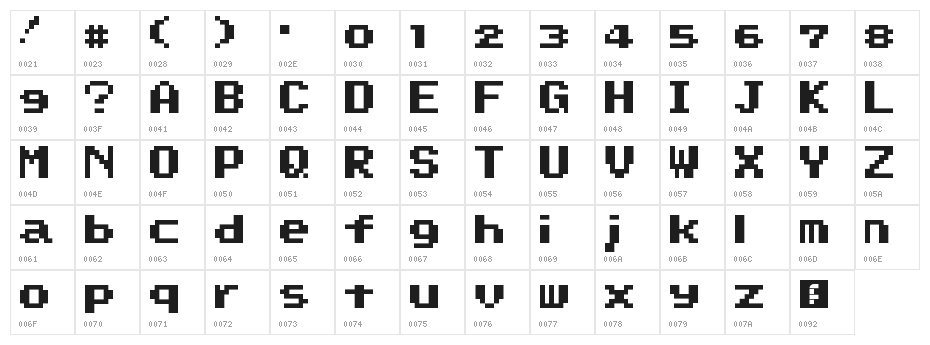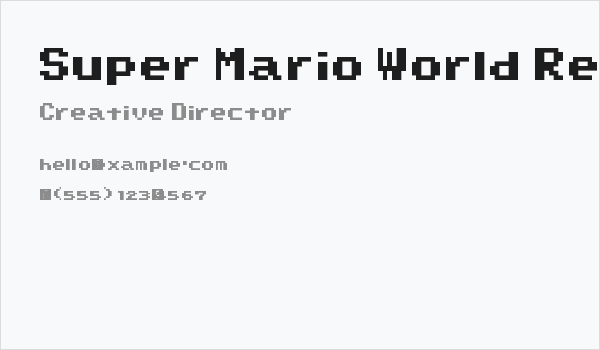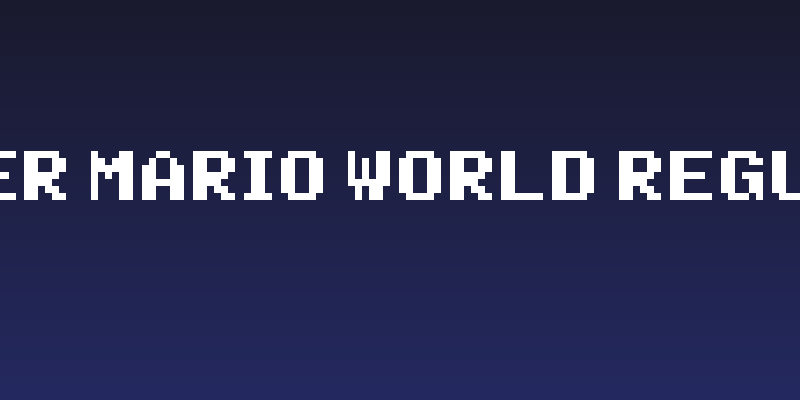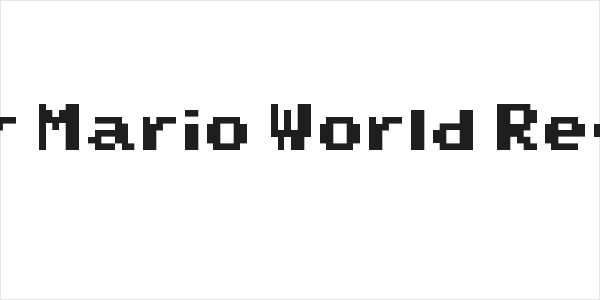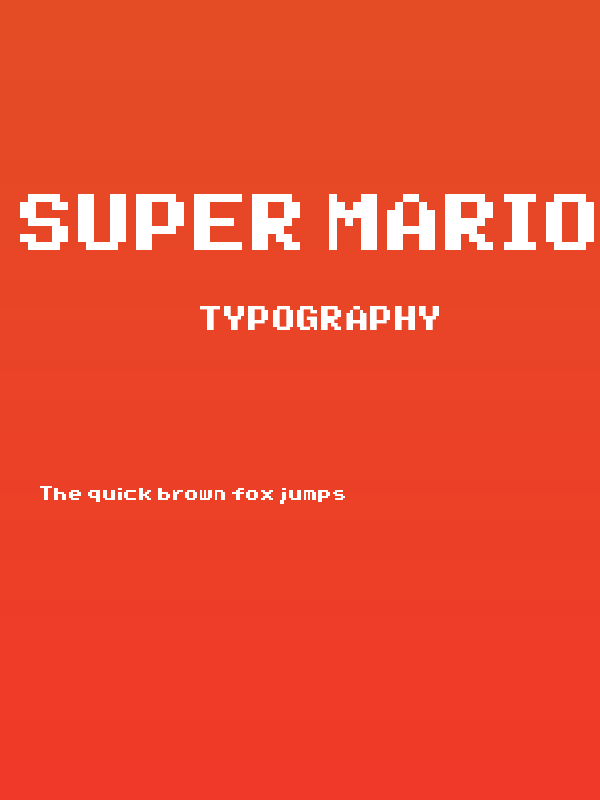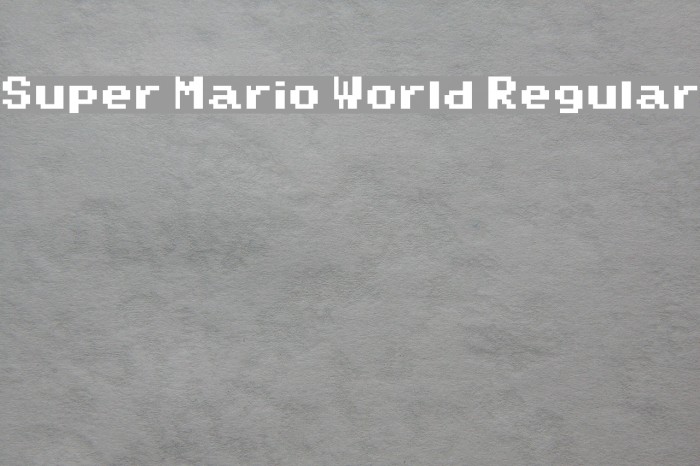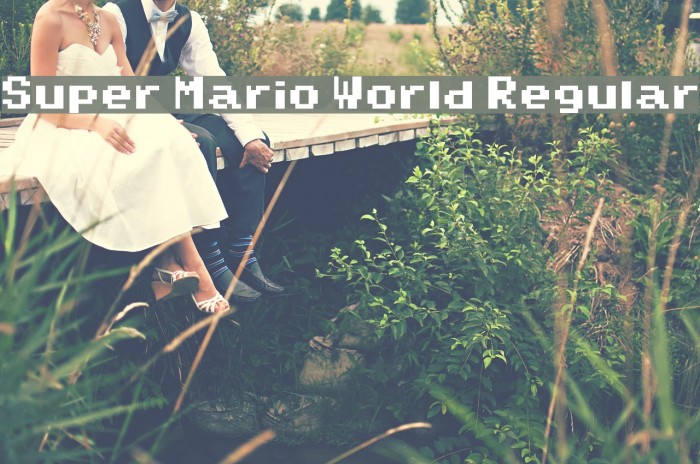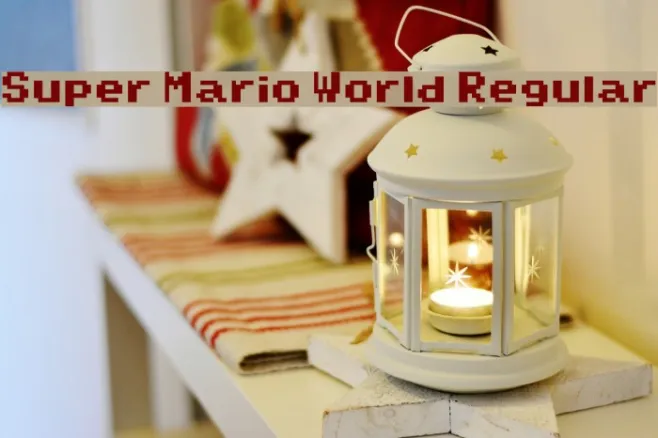
Super Mario World Regular Font
Super Mario World Regular Description
This font features a distinct pixelated style reminiscent of classic video game graphics. Each character is composed of blocky, square shapes, giving it a retro, digital appearance. The uppercase and lowercase letters maintain a consistent height, contributing to a uniform look. The numbers and special characters follow the same pixelated design, ensuring visual coherence across all elements. This font's nostalgic aesthetic is perfect for projects that aim to evoke a sense of vintage gaming or digital art.
| Proposed Projects | Ideal for video game design, retro-themed posters, digital art projects, and nostalgic branding. |